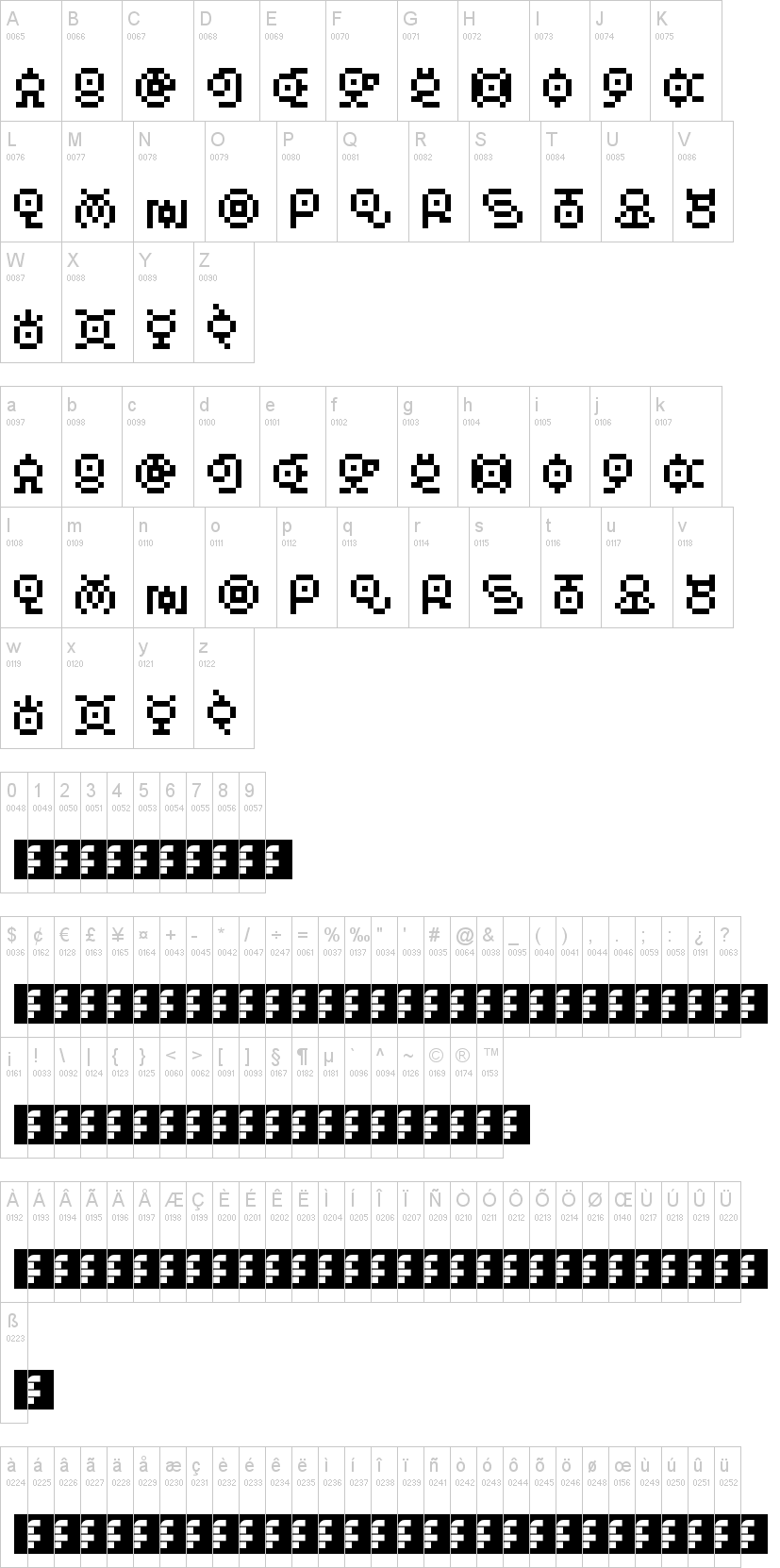
Note of the authorThis is the font used in the GB games Pokémon Gold/Silver/Crystal.
They are found on the walls in the Ruins of Alph.
Usually when I check game sprite rips, there's a font as well.
But sometimes I can't find an actual font file, so I decided to make them myself.